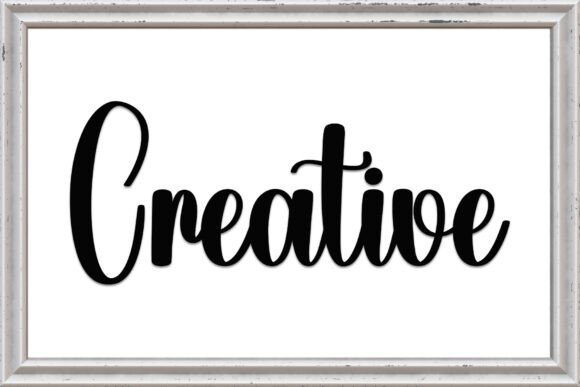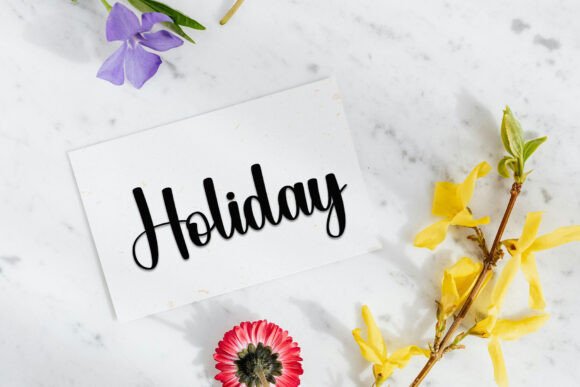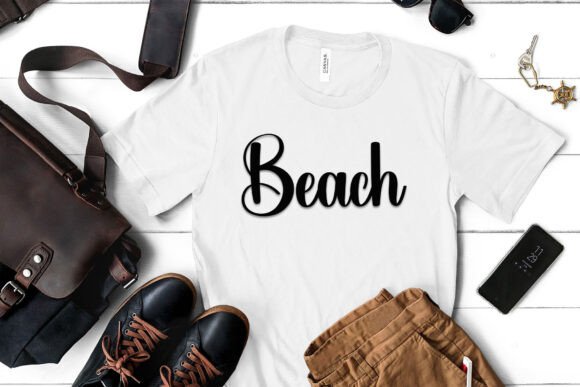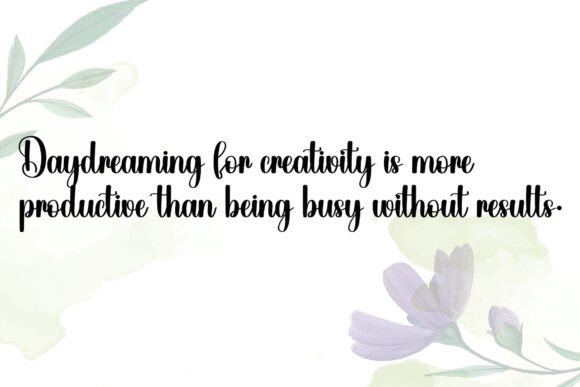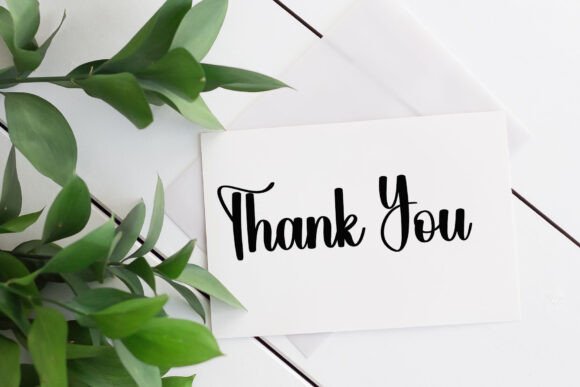
Baby Sweety Font: Elevate Your Designs with Elegance and Class
In the world of typography, fonts play a crucial role in conveying the tone and personality of a design. For designers and crafters looking to add a touch of sophistication and elegance to their projects, the Baby Sweety Font is an excellent choice. This trendy handwritten font boasts a contemporary atmosphere and impeccable form, inspired by timeless classic calligraphy.
The Inspiration Behind Baby Sweety Font
Baby Sweety Font draws inspiration from traditional calligraphy, bringing a sense of nostalgia and classic charm to modern designs. The font’s creator aimed to capture the essence of elegant handwriting, crafting a typeface that exudes refinement and poise. With its fluid strokes and carefully crafted letterforms, Baby Sweety Font is perfect for designers seeking to infuse their projects with a sense of luxury and sophistication.
Key Features of Baby Sweety Font
Baby Sweety Font offers a range of features that make it an attractive choice for designers and crafters. Some of its key characteristics include:
• Trendy and Contemporary: Despite being inspired by classic calligraphy, Baby Sweety Font has a distinctly modern feel, making it suitable for a wide range of design applications.
• Elegant and Refined: The font’s fluid strokes and precise letterforms give it an air of sophistication, perfect for designs that require a touch of elegance.
• Handwritten Feel: Baby Sweety Font retains the charm of handwritten typography, adding a personal and human touch to designs.
• Impeccable Form: The font’s careful craftsmanship ensures that each letterform is beautifully proportioned, contributing to a cohesive and polished look.
Uses for Baby Sweety Font
The versatility of Baby Sweety Font makes it suitable for a variety of design projects, including:
• Branding and Logo Design: Add a touch of elegance to your brand identity with Baby Sweety Font, perfect for luxury brands, beauty products, and high-end services.
• Wedding and Event Design: Create beautiful wedding invitations, stationery, and event materials with this sophisticated font.
• Packaging Design: Elevate your product packaging with Baby Sweety Font, ideal for premium products, cosmetics, and gourmet foods.
• Digital and Print Media: Use Baby Sweety Font in digital and print media, such as magazines, brochures, and social media graphics, to add a touch of refinement and class.
Tips for Using Baby Sweety Font
To get the most out of Baby Sweety Font, consider the following tips:
• Pair with Neutral Backgrounds: Allow Baby Sweety Font to take center stage by pairing it with neutral backgrounds, such as whites, creams, or light grays.
• Experiment with Colors: Try pairing Baby Sweety Font with a range of colors, from rich jewel tones to soft pastels, to create visually striking designs.
• Use for Headings and Titles: Take advantage of Baby Sweety Font’s elegance by using it for headings and titles, adding a touch of sophistication to your designs.
Baby Sweety Font is a beautiful, trendy handwritten font that brings a touch of elegance and class to any design project. Inspired by timeless classic calligraphy, this font offers a unique blend of traditional charm and modern sophistication. With its impeccable form, fluid strokes, and refined letterforms, Baby Sweety Font is perfect for designers and crafters looking to elevate their designs and add a touch of luxury. Whether used for branding, packaging, or digital media, Baby Sweety Font is sure to make a lasting impression.